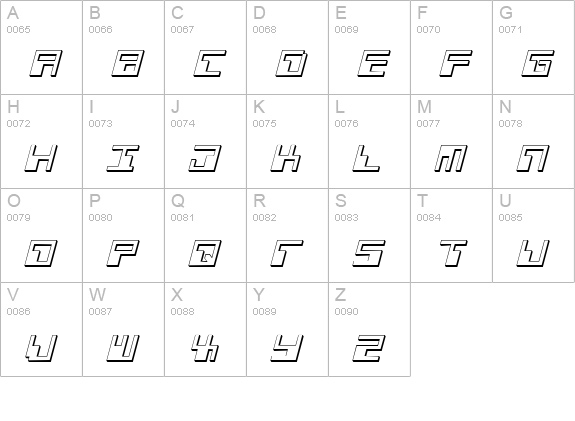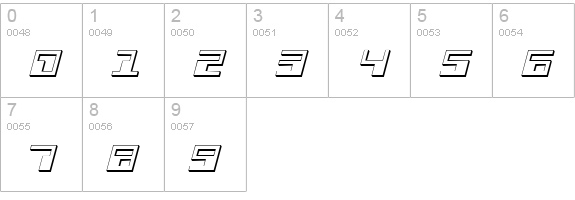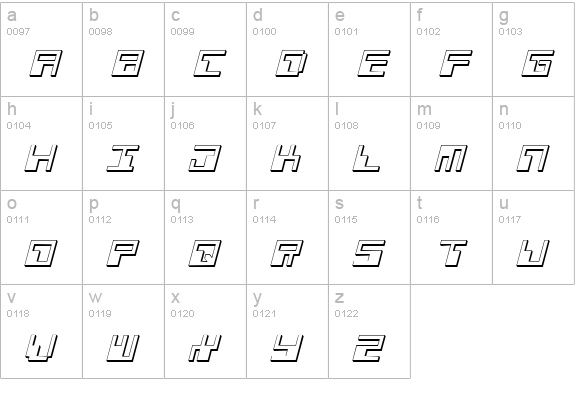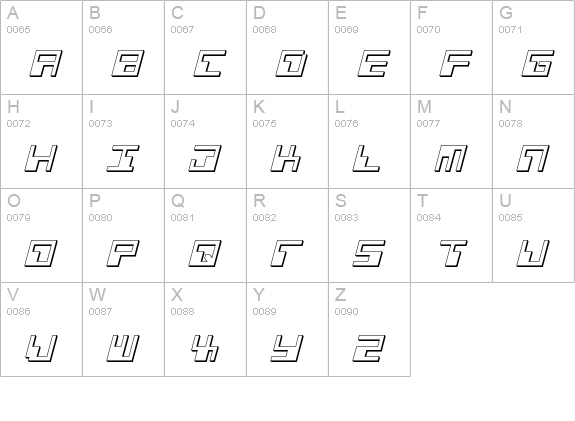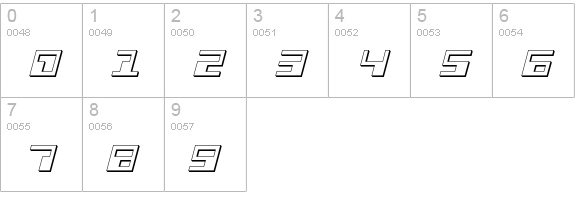
Phaser Bank 3D Italic is a distinctive, italic variant in the Phaser typeface family \xE2\x80\x94 well suited to design and typography projects.
Introducing Phaser Bank 3D Italic font, a modern and dynamic typeface designed to captivate and engage. This font features sleek lines and a three-dimensional effect that adds depth and dimension to your projects. With its bold and italicized style, Phaser Bank 3D Italic font exudes a sense of sophistication and creativity. The best part? This striking font is available for free download at FontsMarket.com. Whether you're working on a digital design project, branding materials, or simply looking to add a touch of flair to your creations, Phaser Bank 3D Italic font is the perfect choice. Elevate your designs with this versatile and eye-catching typeface that is sure to make a lasting impression.